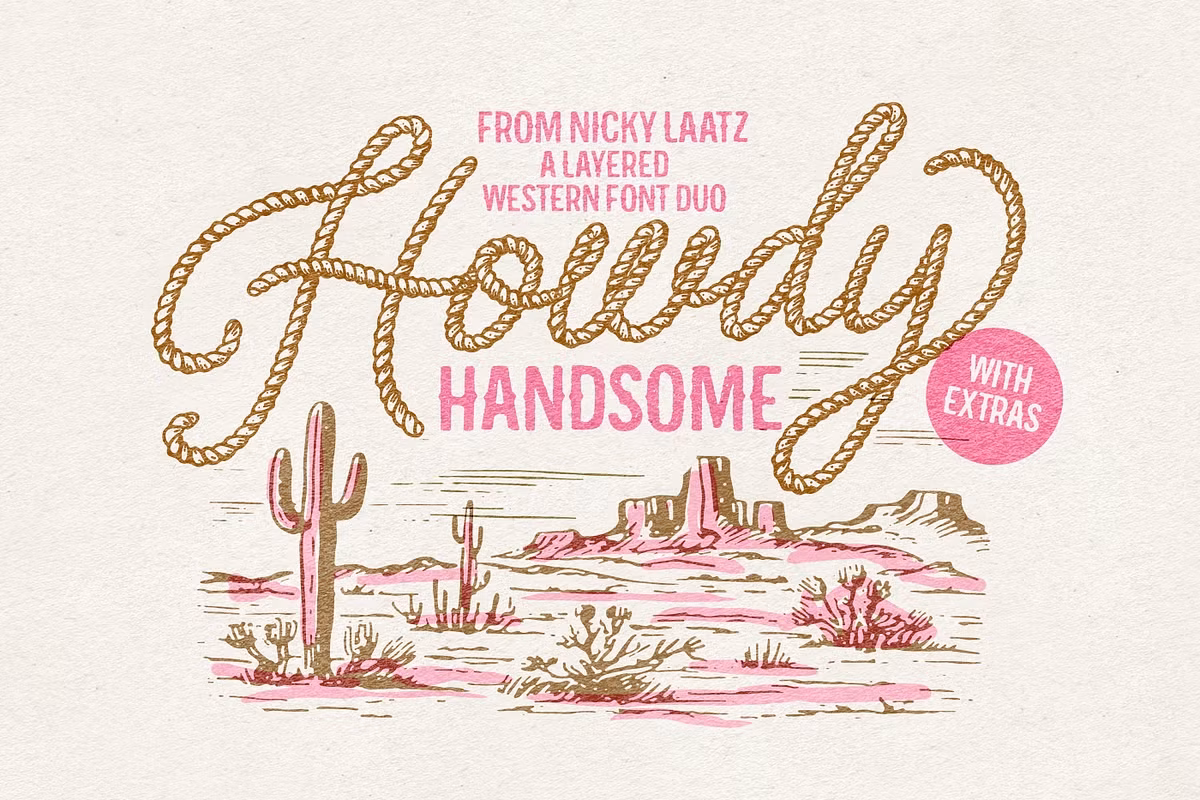
Howdy Handsome Layered Font Duo Free Download is a versatile and engaging typeface set that brings the spirit of the Wild West to your design projects. This duo includes:
1. Rope Script Font: A distinctive script font featuring 17 layering and style options, complete with a variety of OpenType alternate characters, ligatures, and decorative swashes. An upright version is also included for added versatility.
2. Western Sans Serif Font: A complementary all-caps sans serif with subtle spurs, offering 9 layering and style options. A slanted/oblique version is provided to enhance your design flexibility.
Experience the rugged charm of Howdy Handsome Layered Font Duo Free Download in your personal projects. Its combination of script and sans serif styles, along with the bonus graphics, provides endless possibilities for creating standout designs with a Western flair.